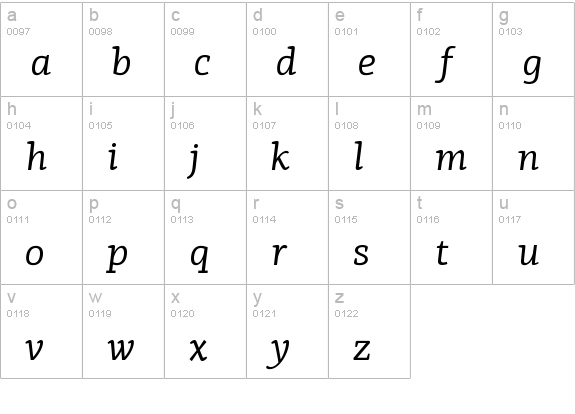
PFCentroSlabPro-Italic is a distinctive, italic variant in the PFCentroSlabPro typeface family \xE2\x80\x94 well suited to design and typography projects.
PFCentroSlabPro-Italic is a modern and stylish font that exudes sophistication and elegance. Its sleek and slanted design adds a touch of dynamism to any project, making it perfect for both professional and creative applications. The italicized version of PFCentroSlabPro brings a sense of movement and flair to your text, making it stand out beautifully. What sets PFCentroSlabPro-Italic apart is that it is available for free download at FontsMarket.com. This means you can easily access this high-quality font without any cost, allowing you to enhance your designs with this premium typeface. Whether you're working on branding materials, editorial layouts, or digital designs, PFCentroSlabPro-Italic will elevate your projects with its unique charm and versatility. Download it today and add a touch of sophistication to your typography.